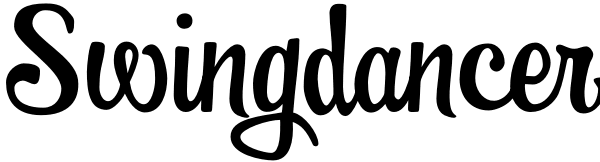
Swingdancer
With a swooshy hand-painted flow, the strokes of this vintage brush script will make your designs sing and dance. While each character is charming on its own merit, put 'em together and this font dances with the swing rhythm and bursting energy of...
Swingdancer Font